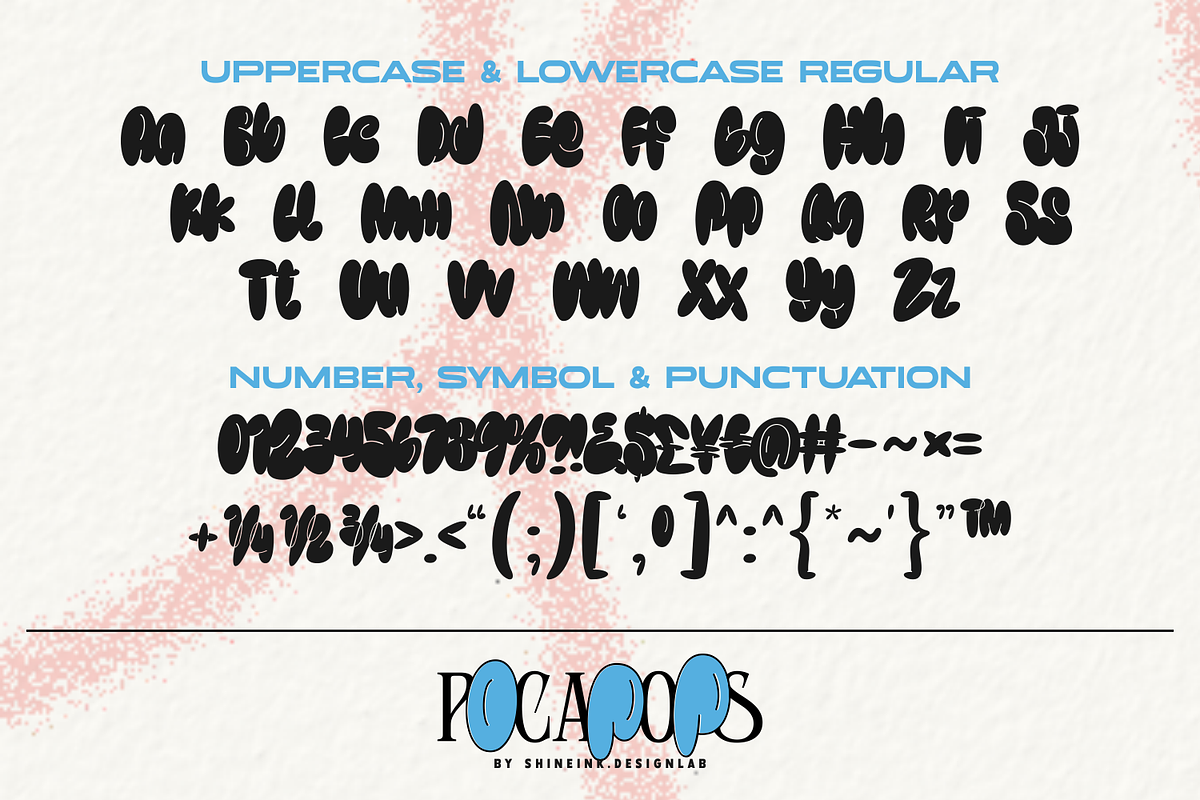
Pocapops
I'm present to you, a bubble graffiti combine sans serif typeface, called Pocapops!
“Pocapops” This one-of-a-kind typeface is a captivating blend of street-inspired edginess and refined sophistication.
“Pocapops” boasts an eclectic fusion of bubbly, graffiti-style elements and the structured grace of serif typography. Each character tells a story of urban vibrancy, where the dynamic flow of graffiti meets the precision of serif text, creating a visually arresting and uniquely balanced design.
This font is a testament to the creative fusion of opposites, offering a versatile solution for designers looking to make a bold statement with a touch of classic charm. The urban bubble motifs inject a playful energy into the otherwise structured serifs, resulting in a distinctive visual language that captures attention and sparks interest.
Whether you’re crafting a logo, poster, or any design that demands a blend of urban grit and typographic finesse, “Pocapops” stands ready to elevate your project. Its uniqueness lies in its ability to transcend traditional boundaries, offering a fresh perspective that resonates with those seeking a modern, yet timeless, aesthetic.
Step into a world where graffiti art meets refined typography, and let “Pocapops” bring an unmatched sense of individuality to your designs. Break free from conventions and infuse your creative endeavors with the spirited essence of the streets.
- Lowercase and Uppercase
- Stylistic Doodles in number
- 4 Style Fonts
- Multiple Languages Supported